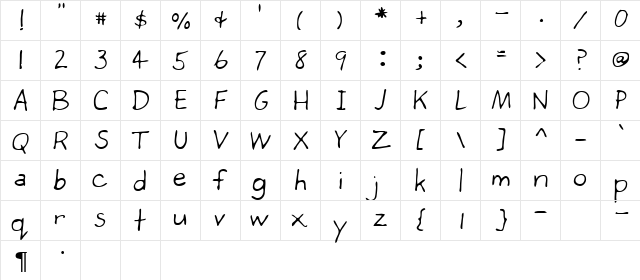
Greg Regular
Design Context for Greg Typeface
Greg takes a measured approach to typography — its balanced proportions and neutral character make it a reliable workhorse for both digital and print work.